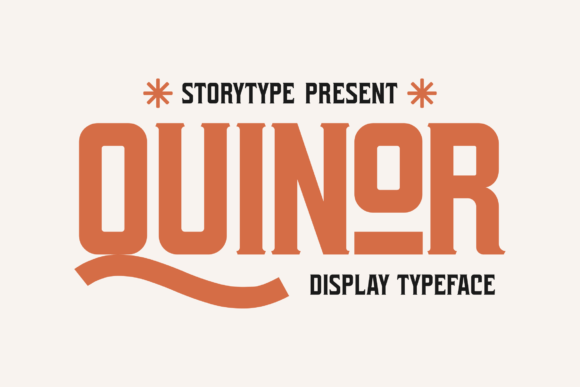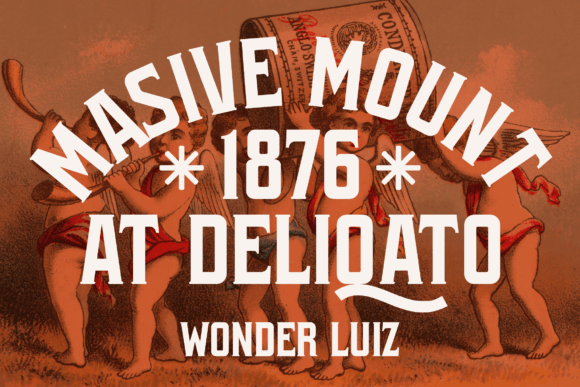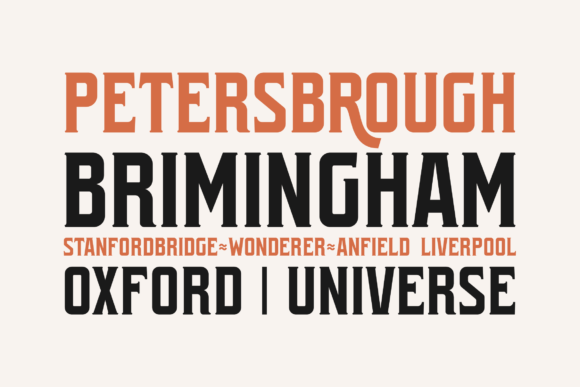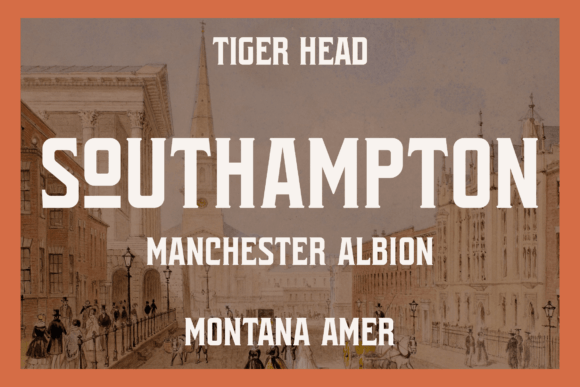
Quinor Font: A Bold Display Typeface for Vintage & Modern Logo Design
About the Quinor Font
From logos to headlines, the Quinor Font is the perfect choice for making a lasting impression. Quinor is a modern and classic typeface that has its own unique style.
This typeface is perfect for an elegant & luxury logo, book or movie title design, fashion brands, magazines, clothes, lettering, quotes, and so much more.
Quinor’s elegant and modern feel makes it ideal for headlines, logos, and short-form text in branding materials, such as packaging or advertising campaigns for luxury goods or high-end fashion. It also excels in creating impactful titles for books, movies, or posters. However, its refined aesthetic isn’t well-suited for body text or lengthy paragraphs, as its distinct letterforms can become visually tiring. UI applications are also not recommended.
To balance Quinor’s sophistication, consider pairing it with a clean sans-serif like Open Sans for body copy or a warmer serif like Garamond for a more traditional feel. For a more contemporary contrast, a geometric sans-serif such as Futura could create a striking juxtaposition.
Quinor projects an air of refined boldness; it’s confident yet sophisticated, making it a strong choice for brands seeking to convey luxury, quality, and timeless appeal.